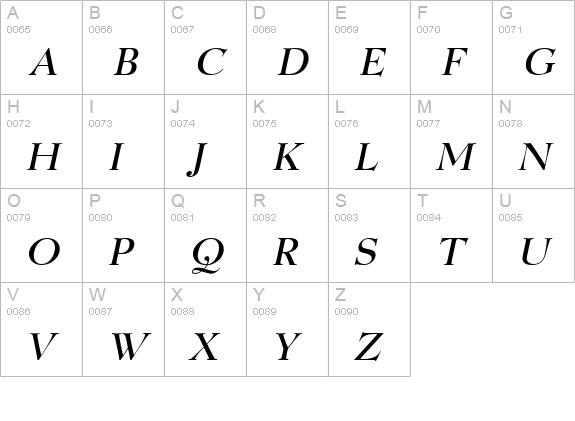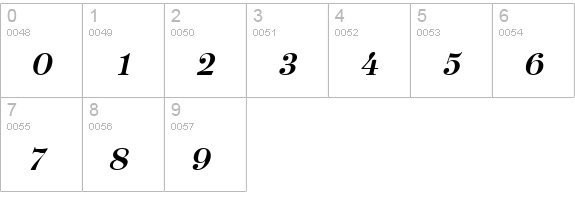
Luciano Italic is a distinctive, italic variant in the Luciano typeface family \xE2\x80\x94 well suited to design and typography projects.
Luciano Italic font is a modern and stylish typeface that exudes elegance and sophistication. With its sleek and flowing design, Luciano Italic adds a touch of class to any project or design. The italicized form of this font conveys a sense of movement and grace, making it perfect for adding a touch of flair to your text. What sets Luciano Italic font apart is that it is not only visually appealing but also versatile and easy to read. Whether you are designing a logo, creating a poster, or crafting a website, Luciano Italic font will help you achieve a polished and professional look. The best part is that Luciano Italic font is available for free download at FontsMarket.com. This means you can easily access and use this stunning font in your projects without any cost. Don't miss out on the opportunity to elevate your designs with the beauty and sophistication of Luciano Italic font. Download it now and let your creativity shine!